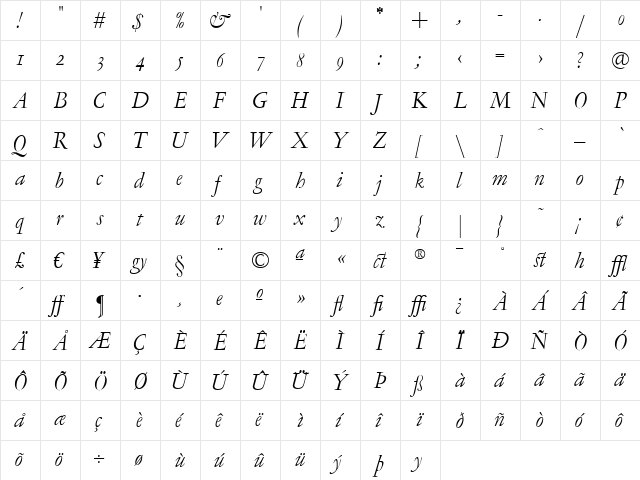
LTC Garamont Display Italic OSF Font Preview
| Designer | Frederic Goudy, Jim Rimmer |
Design Context for LTC Garamont Display Italic OSF Typeface
LTC Garamont Display Italic OSF is built around its visual character rather than neutral utility — its distinctive forms are designed to make an impression at display sizes. The dynamic lean of this cut emphasises speed and emphasis in any layout.
Font Pairing: Pair with a clean neutral sans-serif for body copy to let LTC Garamont Display Italic OSF's character lead without overwhelming the composition.
Pro Tip: Treat LTC Garamont Display Italic OSF as the centrepiece of your typographic hierarchy. One strong heading set in a decorative face can carry an entire layout.